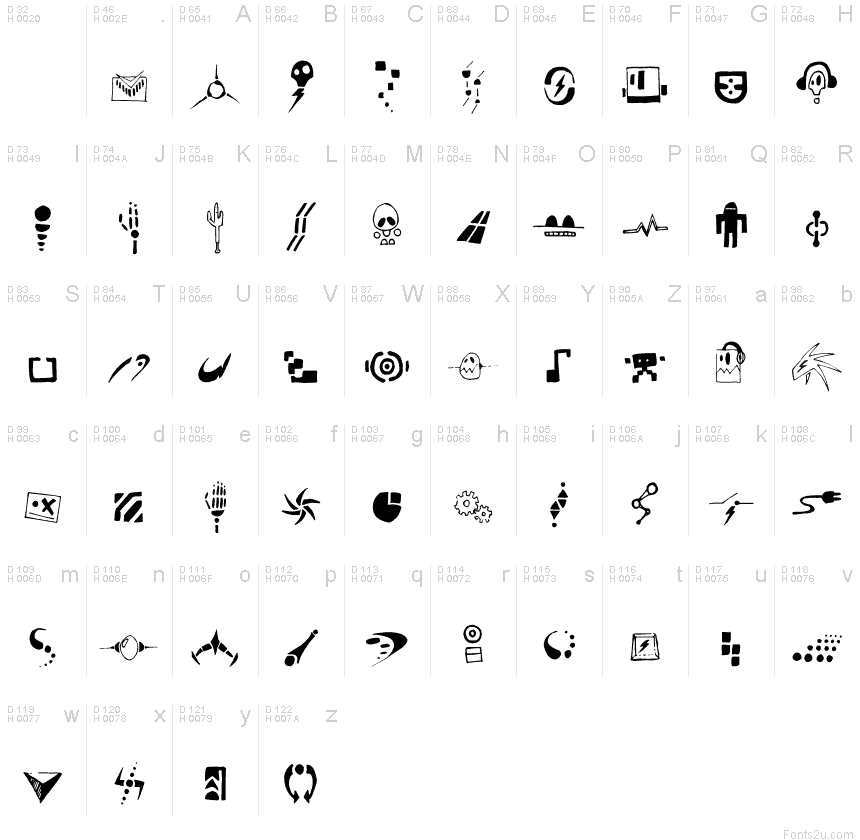
Artefekt
These were quick little concept drawings for a logo I did in 2004.
For some reason I never deleted the little drawings so I decided to take them and turn them all into a font.